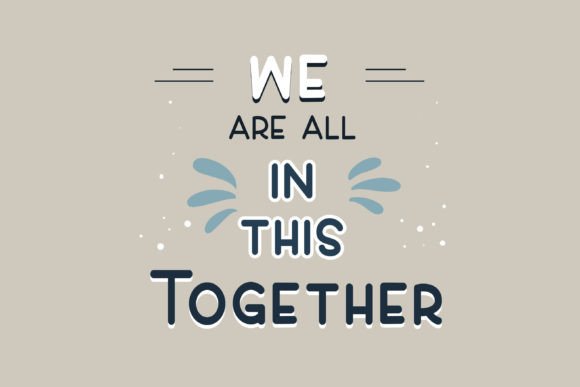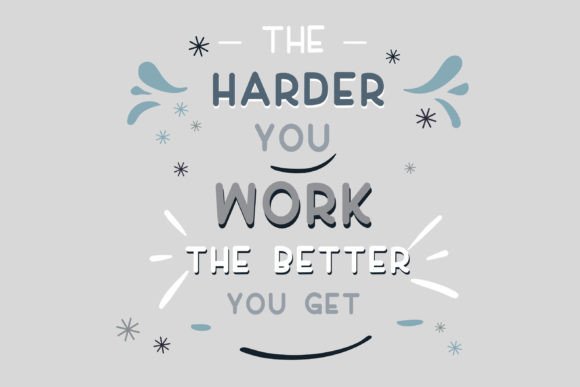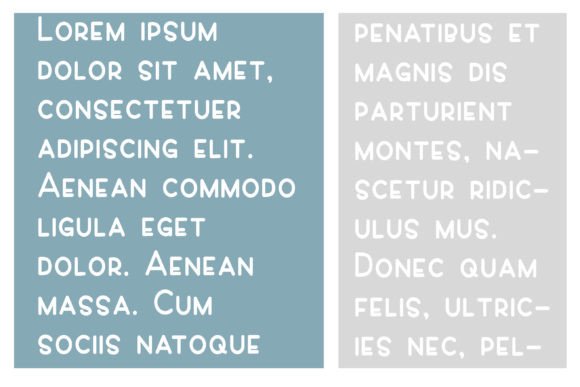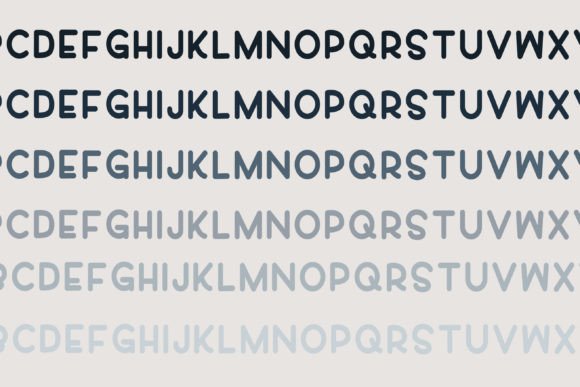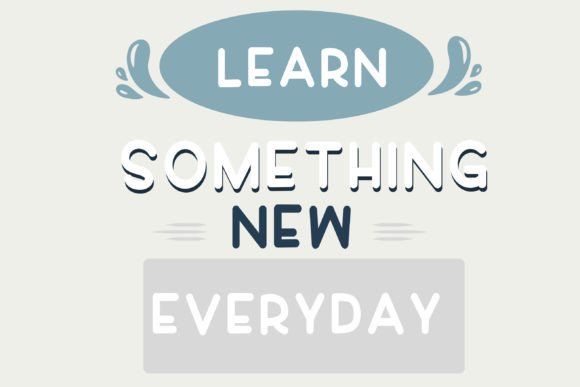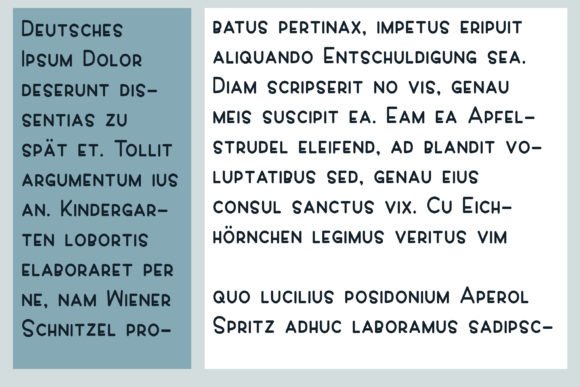
Introduction to Krackajack Font Font
Fonts play a crucial role in design, and the Krackajack Font font is a typeface that brings both character and versatility to any project. Whether you’re working on a branding project, a website, or a print design, the Krackajack Font font offers a unique style that can elevate your work.
This hand-crafted sans serif is a simple, all-caps print with a shorter lowercase.
Fat version included A hand-crafted font is a font that is designed to look like it was written by hand.
Key Features of Krackajack Font Font
Why Choose Krackajack Font Font?
The Krackajack Font font is more than just a typeface – it’s a design tool that helps you communicate your message with style and clarity. Its unique character set and versatile design make it suitable for a wide range of applications, from elegant invitations to bold headlines.
With its carefully crafted letterforms and balanced proportions, the Krackajack Font font ensures readability and visual appeal across all mediums.
What makes Krackajack Font font special?
The Krackajack Font font stands out with its unique design, exceptional readability, and versatility across various design applications.